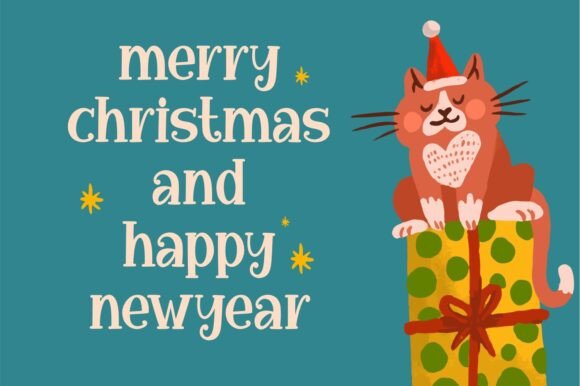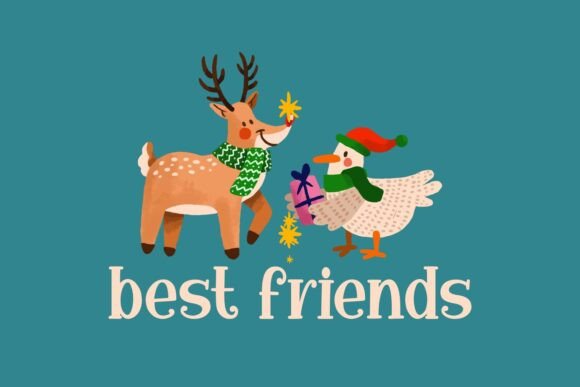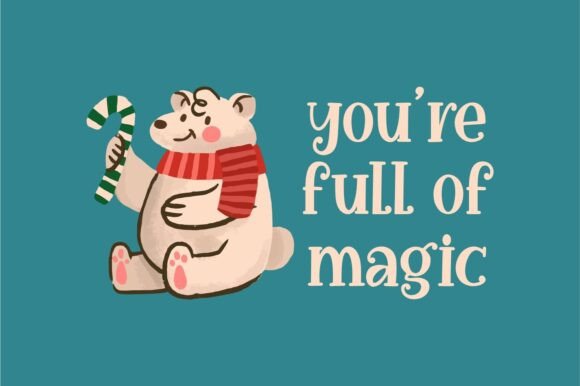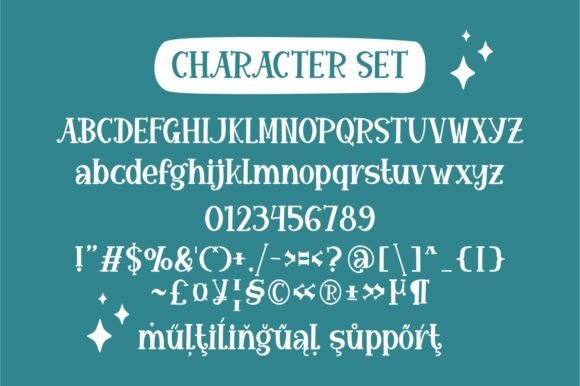
Introducing Christin Stories Font: The Perfect Blend of Elegance and Whimsy
Are you looking for a font that can add a touch of magic to your designs? Look no further than Christin Stories Font, a playful serif font that combines elegance with whimsy. This charming font is perfect for holiday designs, greeting cards, children’s books, and festive branding, making it a versatile addition to any designer’s toolkit.
A Font that Embodies the Spirit of the Holidays
Christin Stories Font is designed to capture the essence of the holiday season. Its cheerful personality and playful serif details make it an ideal choice for creating festive and fun designs. Whether you’re working on a holiday card, a children’s book, or a festive branding project, this font is sure to add a magical touch that will delight your audience.
Key Features of Christin Stories Font
• Playful Serif Font: Christin Stories Font is a serif font with a playful twist, making it perfect for designs that require a touch of whimsy.
• Multilingual Support: This font offers full multilingual support, allowing you to create designs that cater to a global audience.
• Versatile Character Set: Christin Stories Font comes with a versatile character set, providing you with a wide range of options for creating unique and creative designs.
• Elegant and Whimsical: This font combines elegance with whimsy, making it perfect for designs that require a balance of sophistication and playfulness.
Christin Stories Font is a great choice for designers and crafters who want to add a personal touch to their projects. Whether you’re creating holiday cards, children’s books, or festive branding materials, this font is sure to inspire your creativity. Its playful and cheerful personality makes it perfect for designs that require a touch of whimsy and fun.
Use Cases for Christin Stories Font
• Holiday Designs: Use Christin Stories Font to create festive holiday cards, posters, and social media graphics that will delight your audience.
• Greeting Cards: Add a personal touch to your greeting cards with this charming font, perfect for birthdays, holidays, and special occasions.
• Children’s Books: Christin Stories Font is a great choice for children’s books, adding a playful and imaginative touch to your story.
• Festive Branding: Use this font to create festive branding materials, such as logos, packaging, and advertisements, that will help your brand stand out during the holiday season.
Christin Stories Font is a versatile and charming font that is perfect for designers and crafters who want to add a touch of magic to their projects. With its playful serif details, multilingual support, and versatile character set, this font is sure to inspire your creativity and help you create unique and festive designs. Whether you’re working on holiday designs, greeting cards, children’s books, or festive branding materials, Christin Stories Font is the perfect choice for spreading holiday joy and creativity!